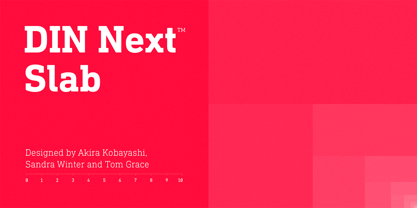
DIN Next Slab
DIN® Next Slab
by Monotype
DIN Next Slab Font Family was designed by Akira Kobayashi, Tom Grace, Sandra Winter and published by Monotype. DIN Next Slab contains 14 styles family package options.
Now even more design possibilities with the popular DIN Next. With its technical and neutral character, DIN Next has earned a permanent place in contemporary typography. Now, DIN Next Slab expands the font family further, offering new design potential. Now comes the next step, DIN Next Slab, also produced under the direction of Akira Kobayashi. On a team with Sandra Winter and Tom Grace, Kobayashi is creating the new font variant based on the optimized shapes of DIN Next. The expansion will make the popular font all the more flexible and versatile. Apart from that, the geometric slab serifs underline the technical and formal nature of the font and emphasize a central design element of DIN Next. However, the team did have some challenges to overcome. While it is relatively easy to imagine DIN Next Light with slab serifs, the amount of available space quickly disappears when it comes to the Black styles. Winter explains that many tests and trials were necessary to find a compromise between space, letters and the serif shapes. Experiments with modified contrast in the weight or only one-sided serifs were quickly abandoned. The central, technical and powerful character of the font changed too much. Nevertheless, it was necessary to simplify slightly the shape of some letters, such as the ‘k’ or ‘x’, for example. These changes, first developed in the Black styles, were applied to all weights in order to lend the font a consistent appearance. Like DIN Next, DIN Next Slab also has seven weights, which cover the range from Ultralight to Black, each with matching italic. There are various character sets in all of the styles and the four middle weights have small capitals available. DIN Next Slab harmonizes perfectly with the styles of DIN Next: the basic letterforms and weights are identical. Both versions of the font can work together perfectly, not just in headlines and body text, but also within a text; they complement each other very well as design variations. With the new DIN Next Slab, Monotype expands the DIN Next super family consistently. With DIN Next Slab, you can underscore the technical and formal nature of the understated font not only in headlines, but in texts, as well. In this way, you have new and diverse potential for application, thanks to the way the different styles of DIN Next combine perfectly.
Designers: Akira Kobayashi, Tom Grace, Sandra Winter
Publisher: Monotype
Foundry: Monotype
Design Owner: Linotype